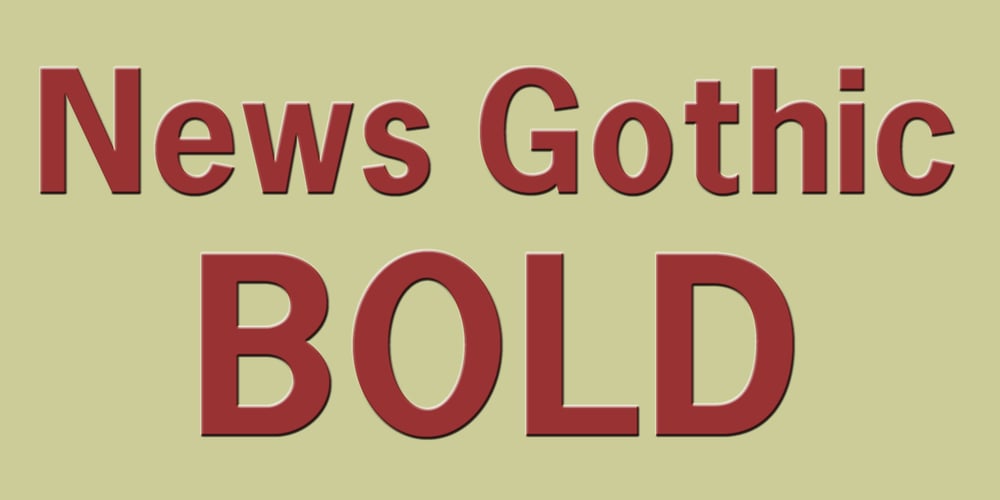
News Gothic
News Gothic font
News Gothic Font Family was designed by Morris Fuller Benton, Jordan Davies and published by Wooden Type Fonts. News Gothic contains 1 styles and family package options. A revival of one of the popular of the early 20th century fonts, suitable for bold text.